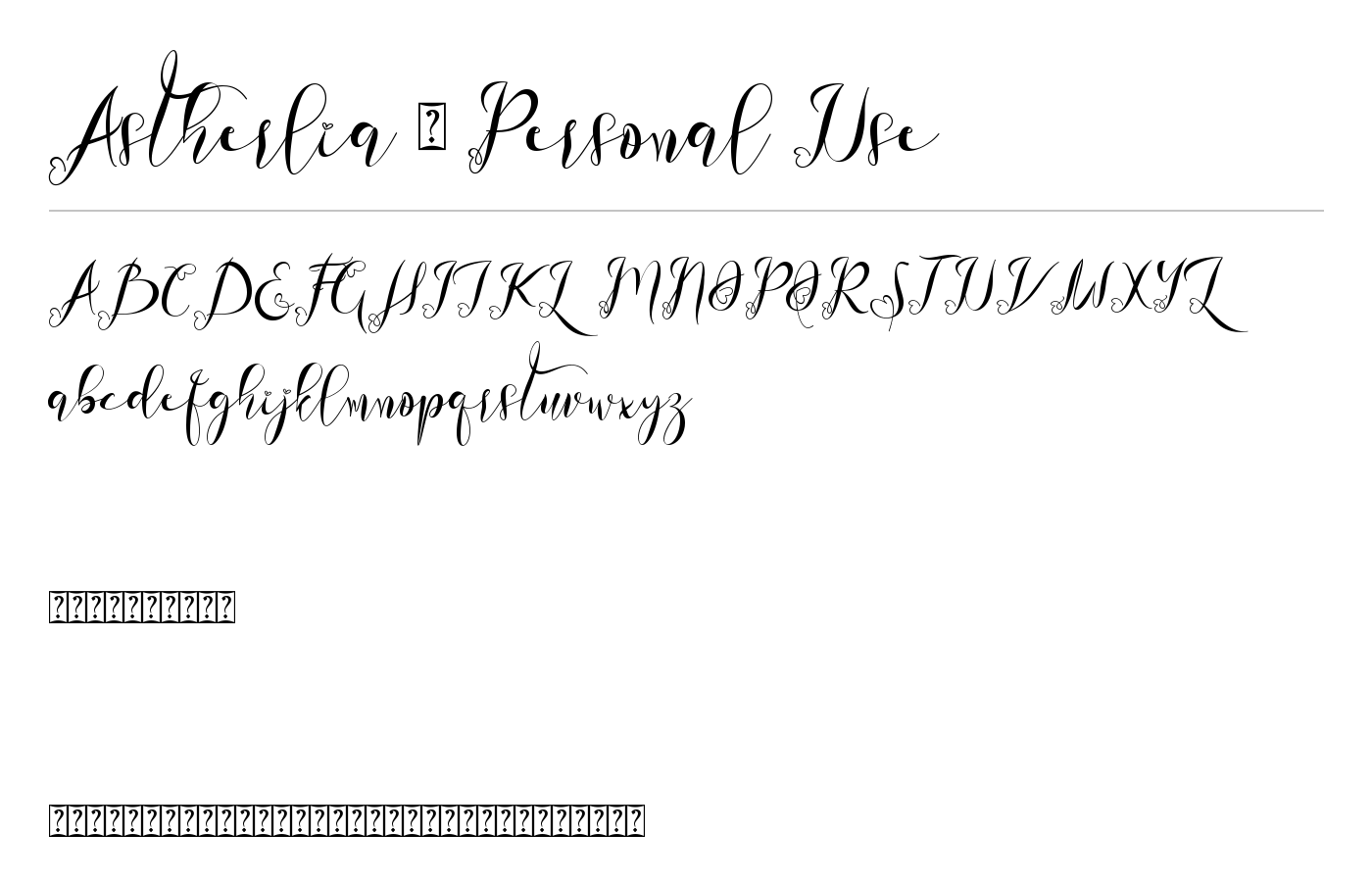
Astherlia is an elegant script font with flowing, delicate strokes and charming heart-shaped embellishments that give it a romantic, handcrafted feel. Its thin, graceful letterforms work beautifully for invitations, branding, or any design that needs a touch of sophistication and femininity. This font is perfect for projects aiming to evoke warmth, elegance, and a personal touch.
Astherlia Font
About Astherlia Font
| Font family | Astherlia Font |
| Designer | Yoga Letter 2020 (Isroni Yoga Prasetya) |